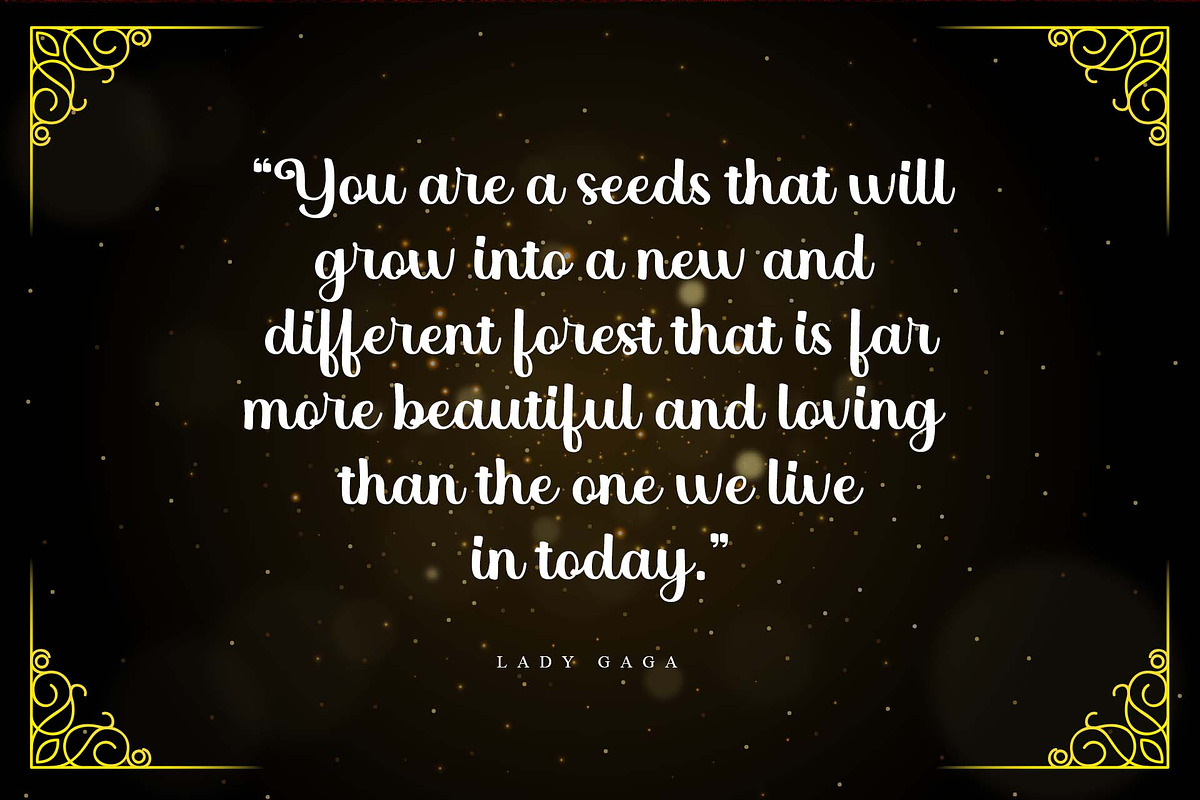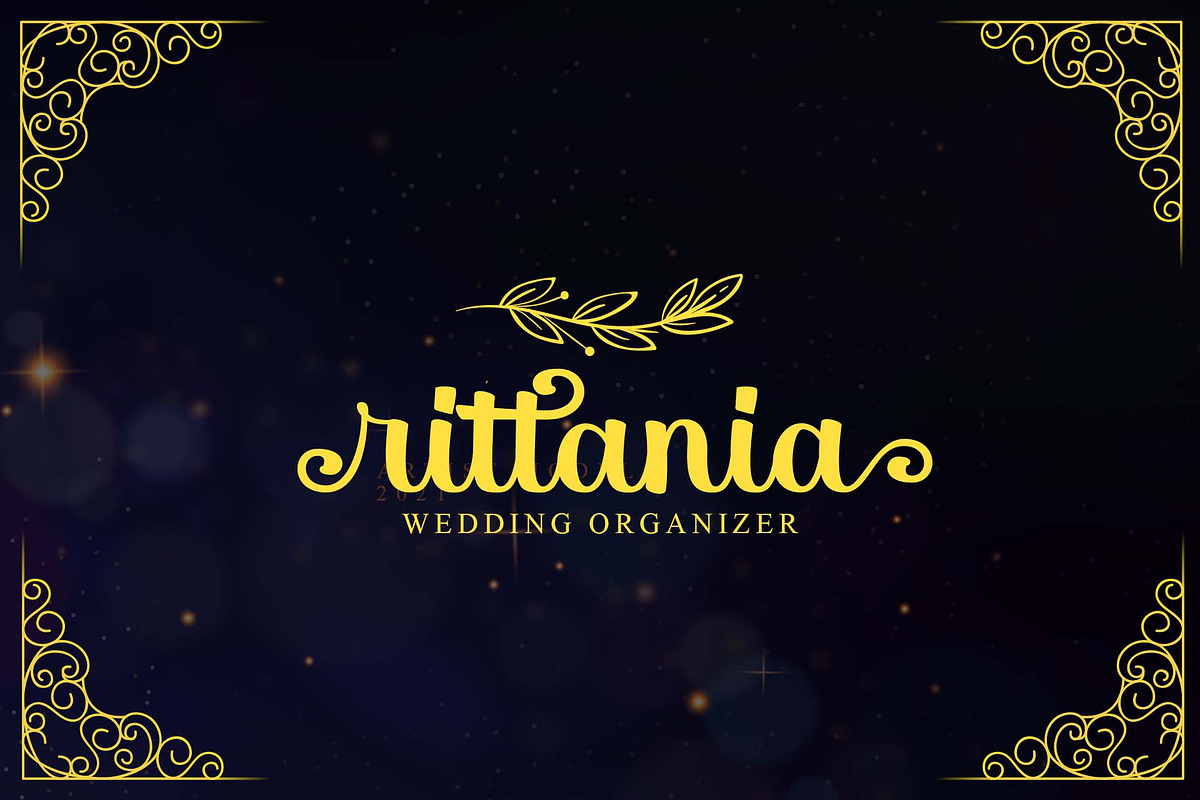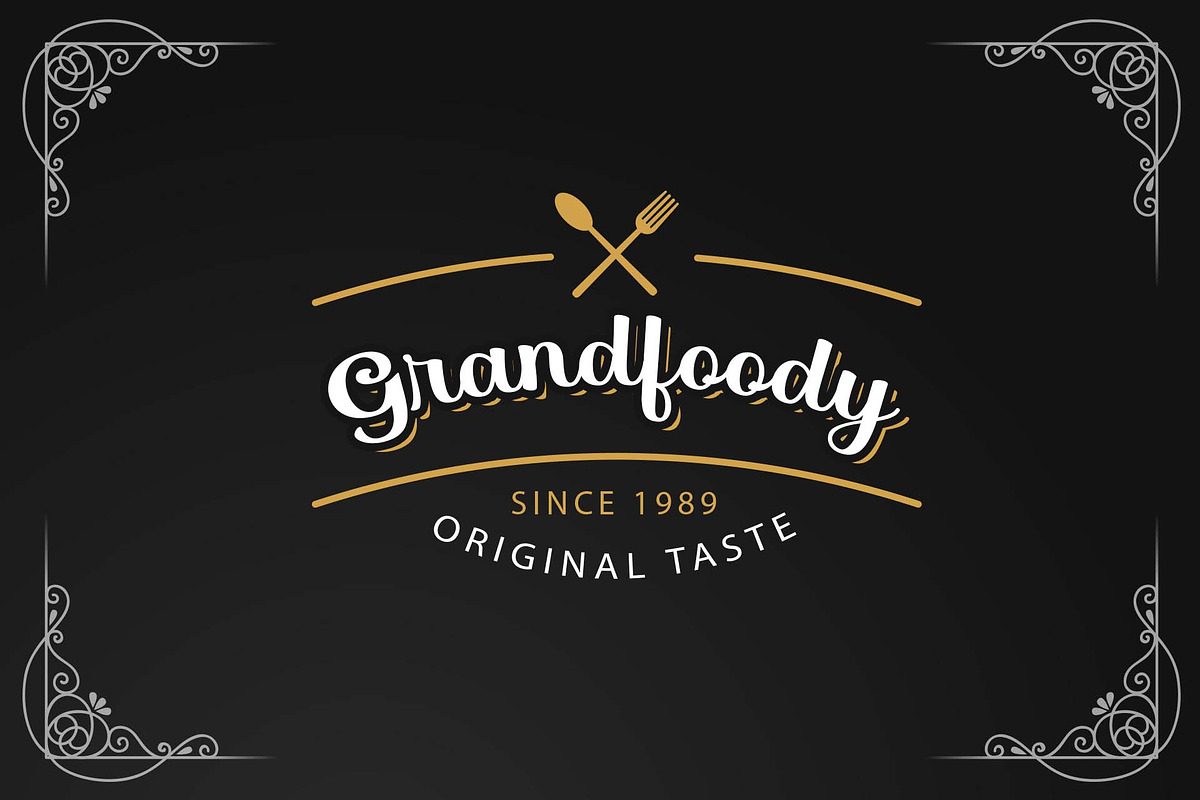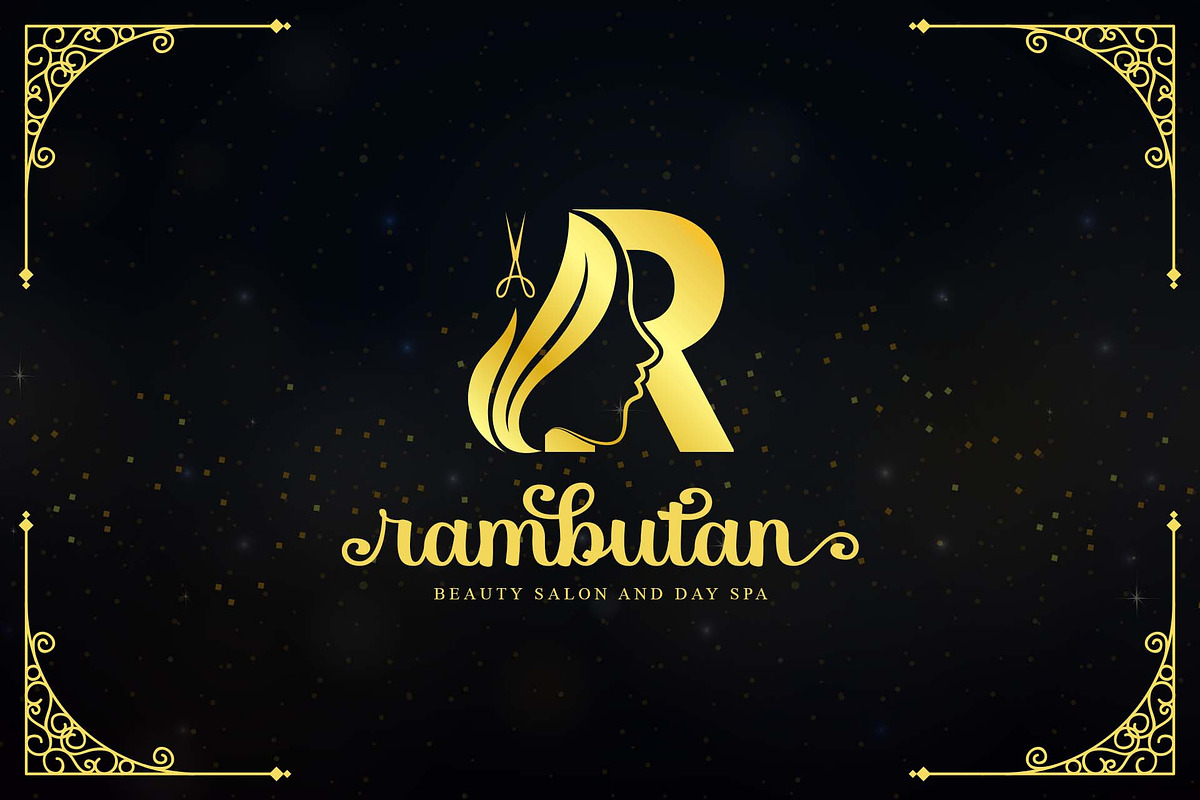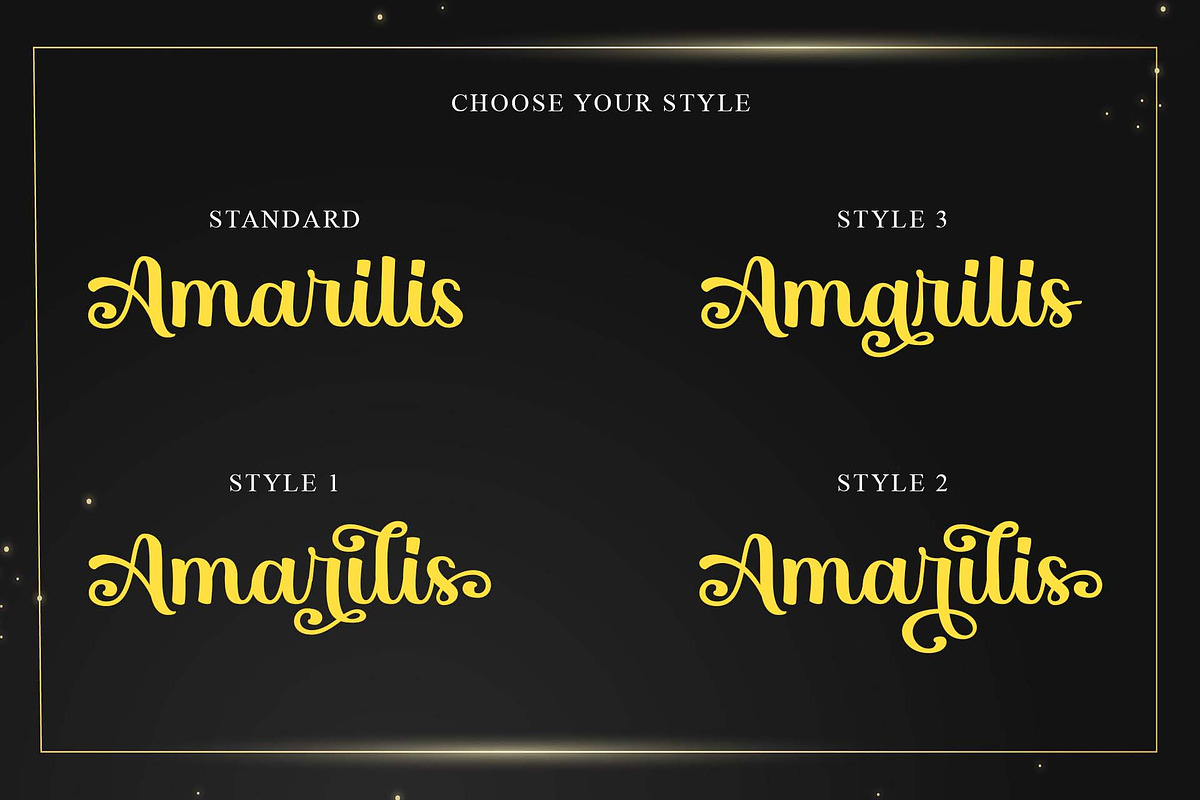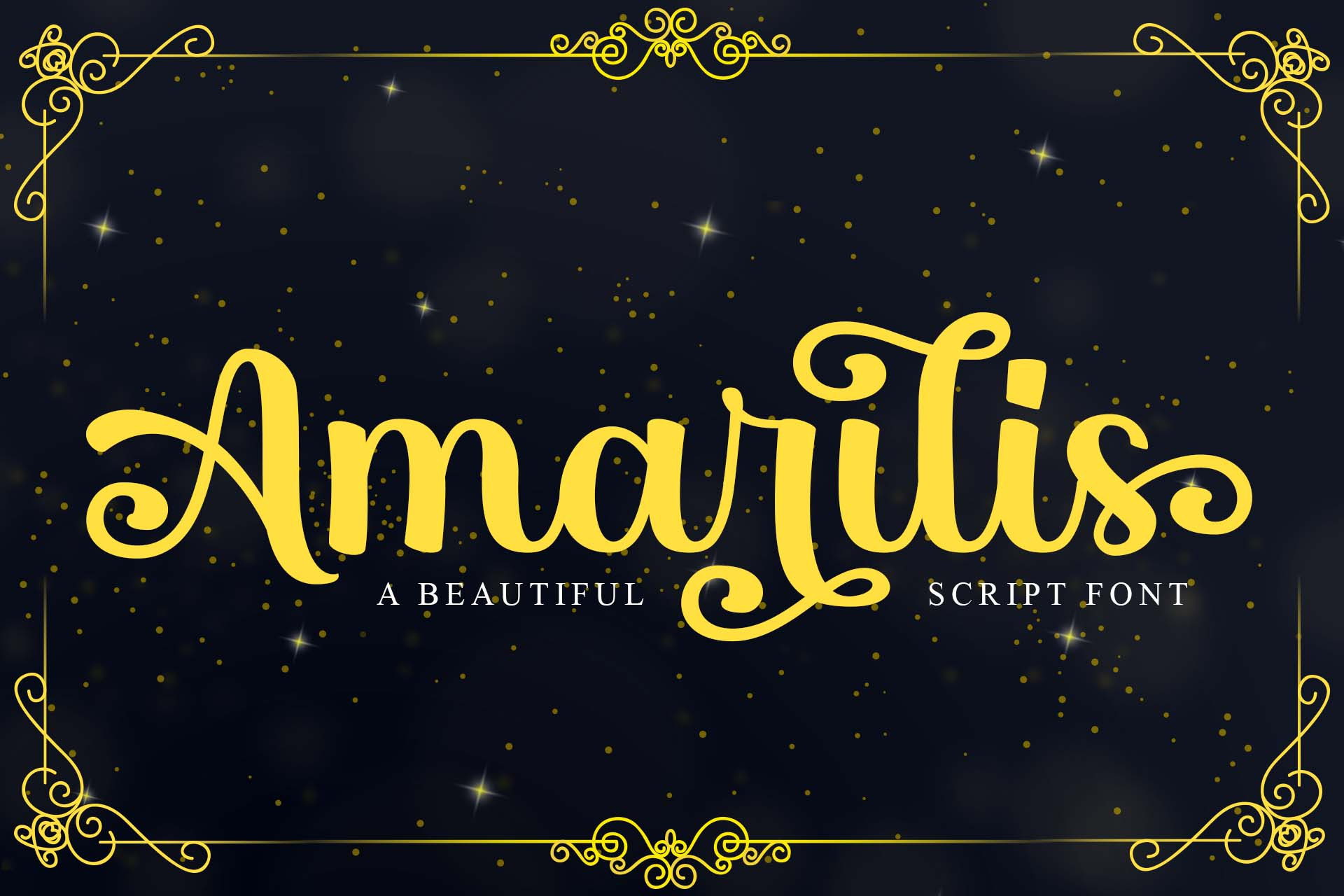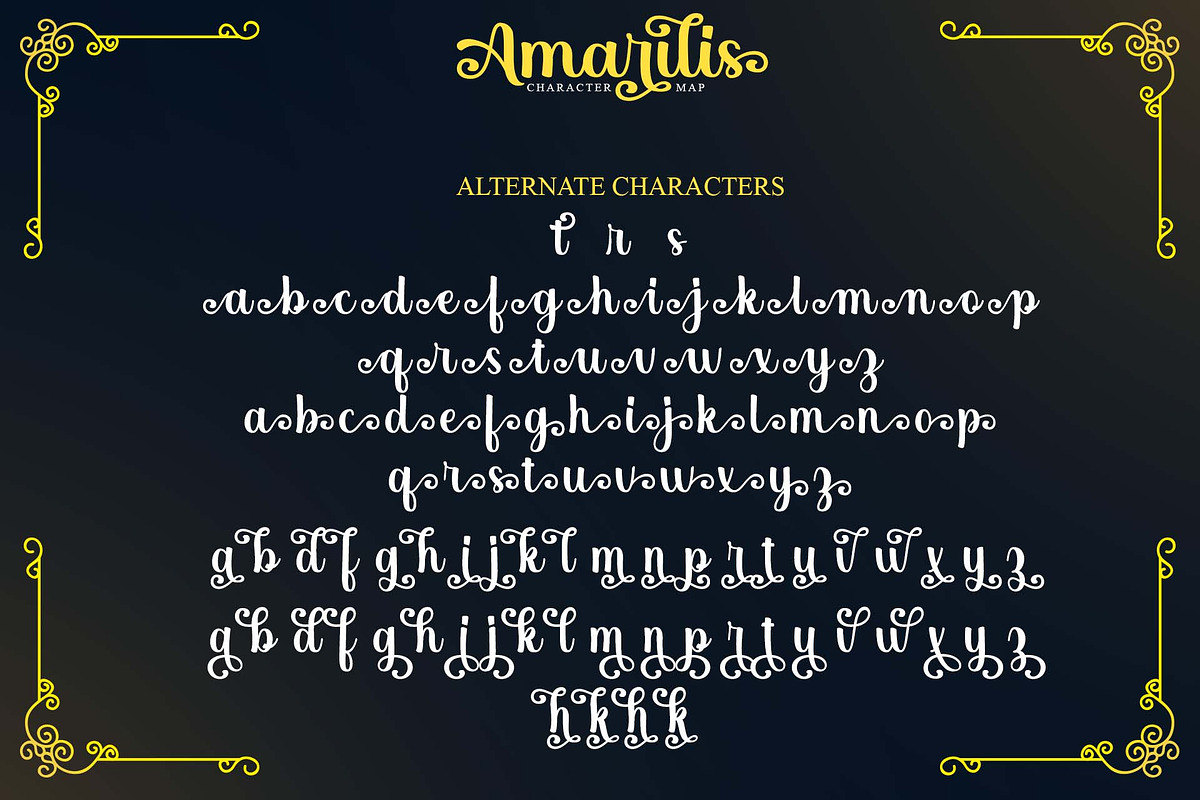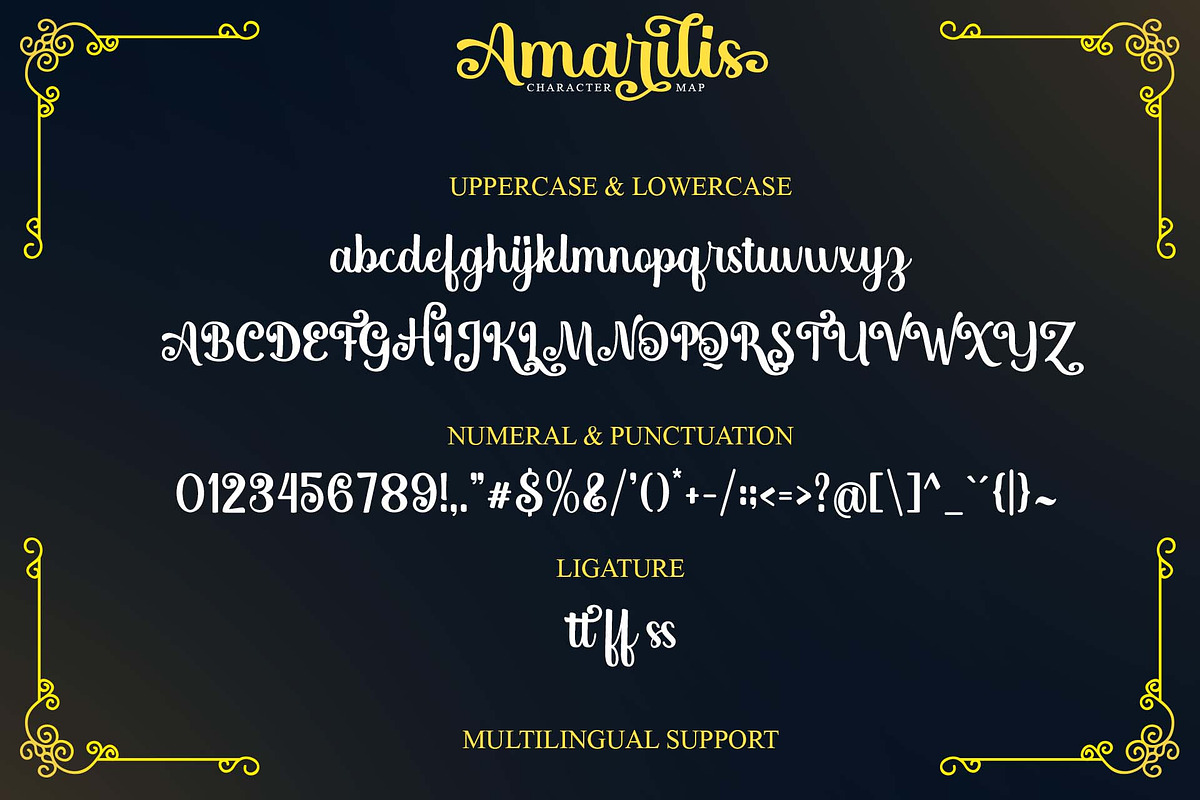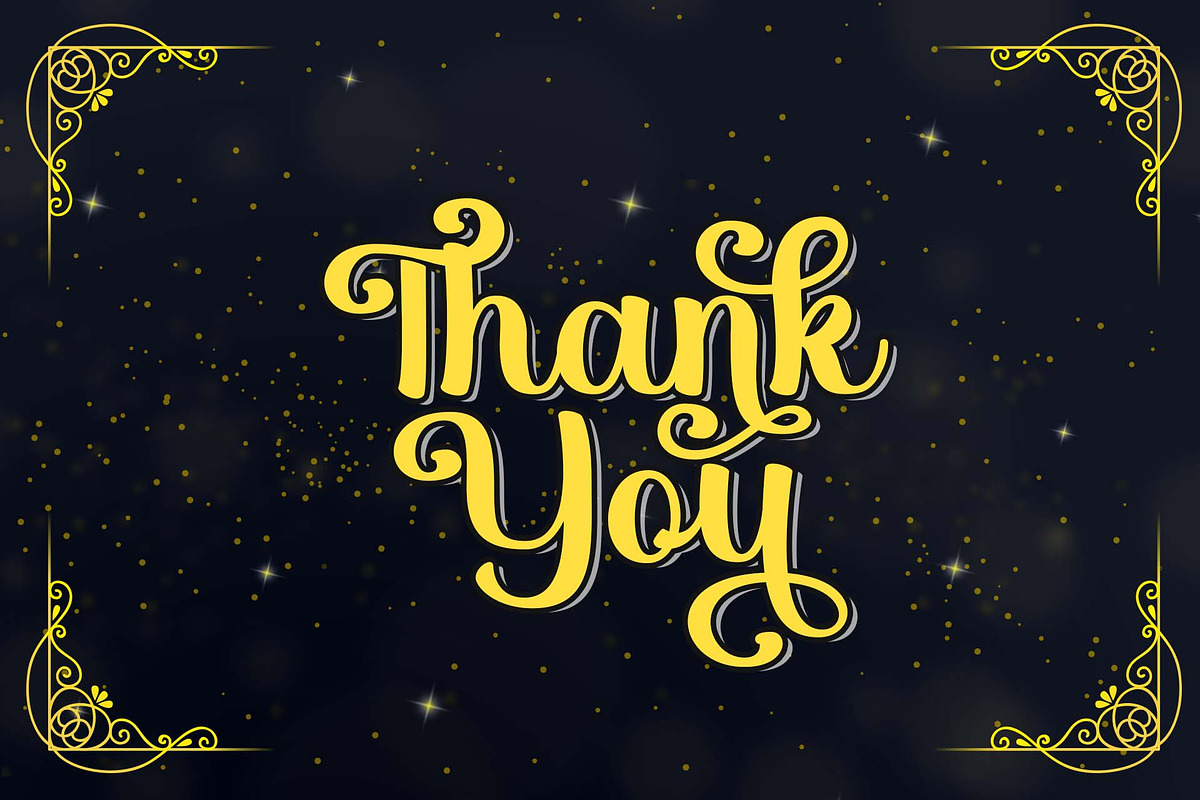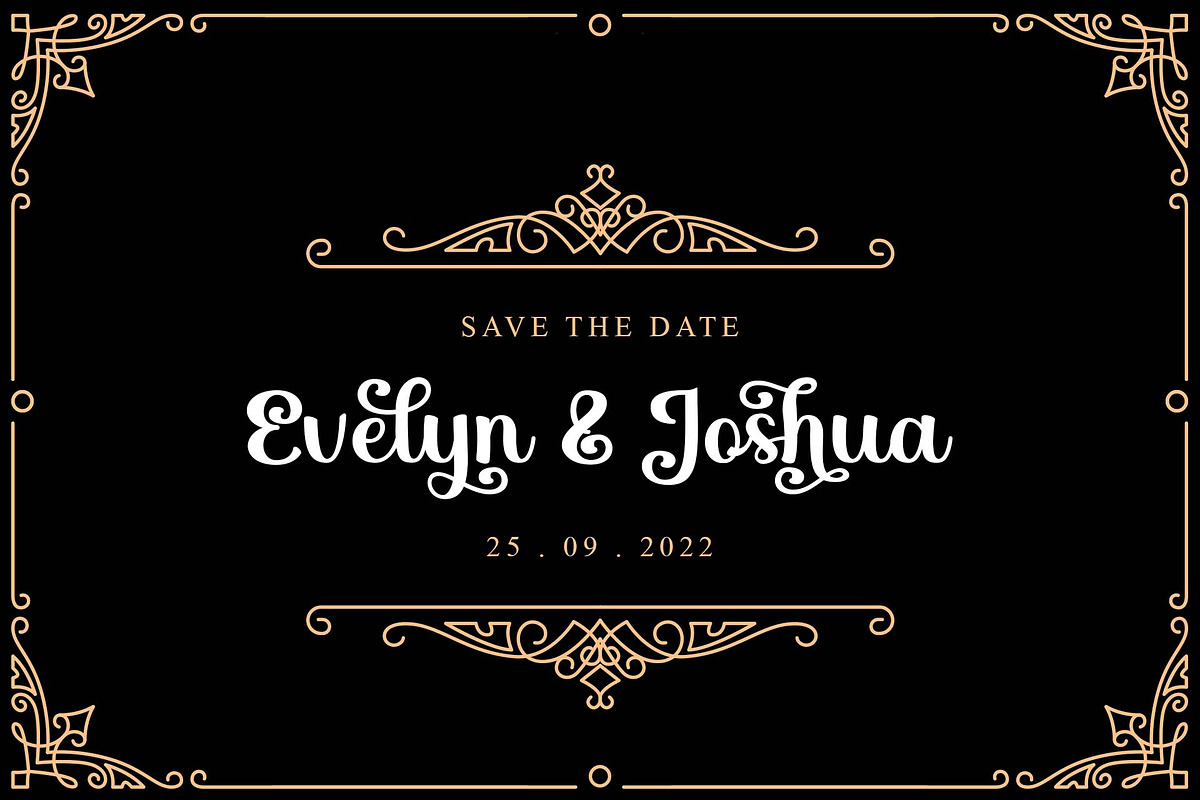
Amarilis - A Beautiful Script Font
Inspired by a flower named Amarilis, this font is made with exquisite and detailed looks. This font is very easy to read and of course beautiful when using some alternative characters with the right letter composition.
This font looks elegant and charming to be used as wedding invitation cards, product logos, brand logos, greeting cards, quotes, and many design project..